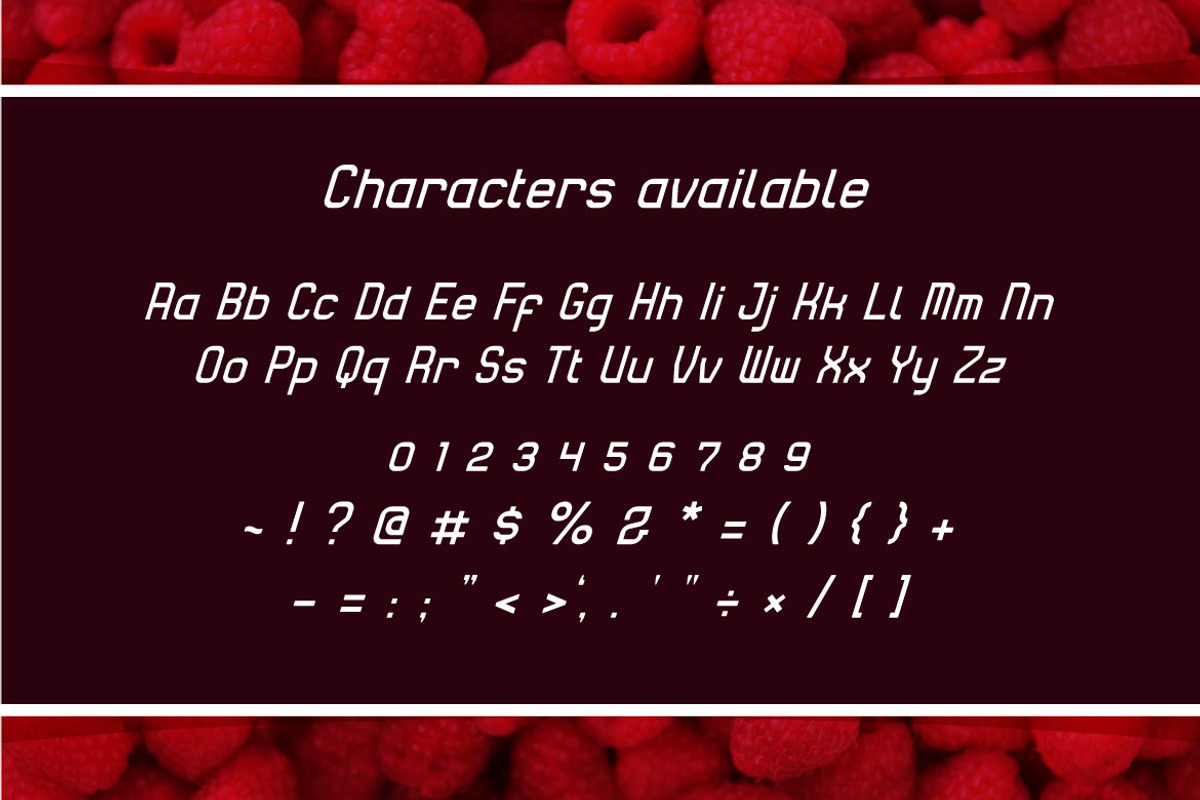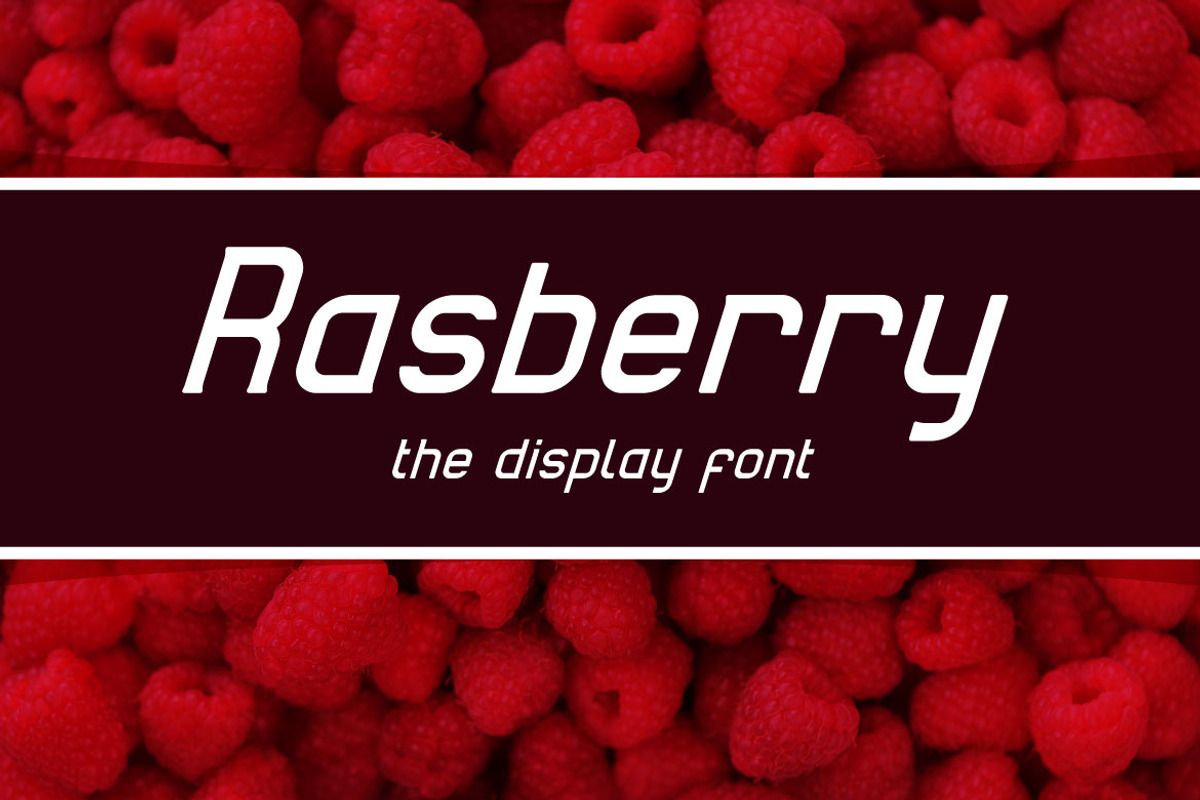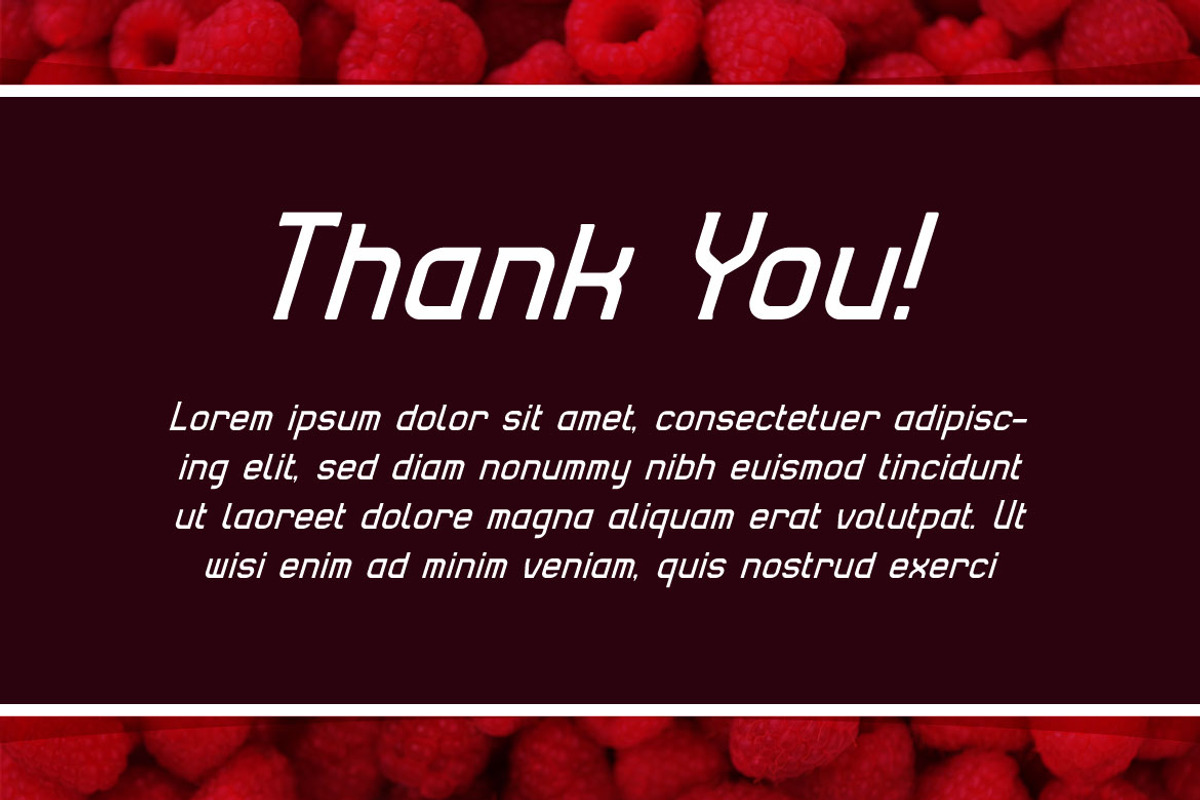
Rasberry - Clean and Modern Font
If you are looking for a modern and clean and eye catching font that good for display and content, meet RASBERRY Rasberry is perfect for any works, such as your poster, card, book title, headline of news, banner, flyer, stationery and many more. It also can be used in Any scale work.